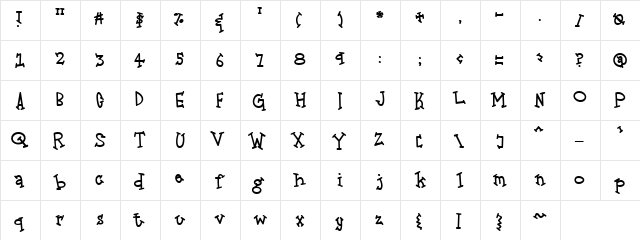
LD Funny Serif Regular
Design Context for LD Funny Serif Typeface
LD Funny Serif trades formality for fun, with bouncy, characterful letterforms that bring warmth and energy to any project.
Font Pairing: Pairs well with a rounded or humanist sans for body copy, maintaining the friendly tone without relying on LD Funny Serif to carry extended reading.
Pro Tip: Avoid using LD Funny Serif for long passages of text — it works best for headlines, labels, and short calls to action.